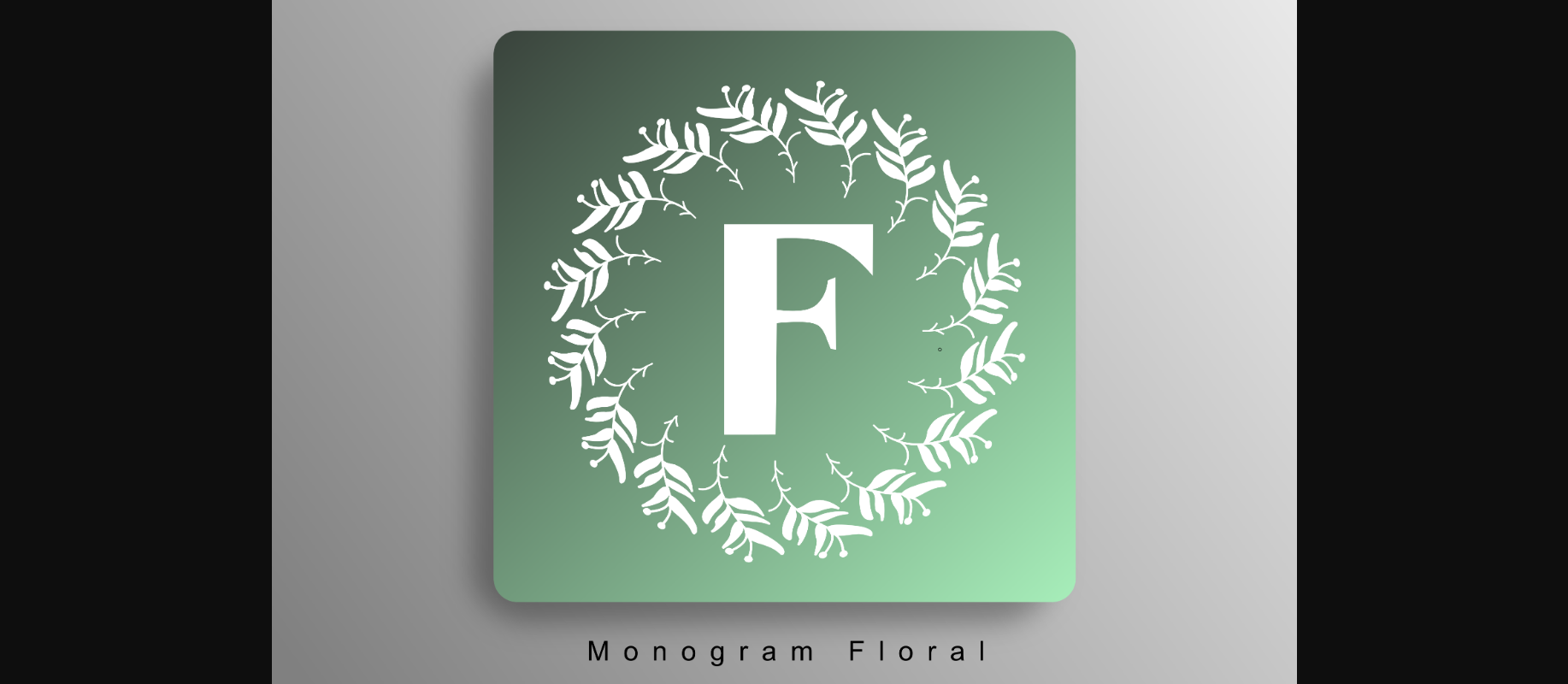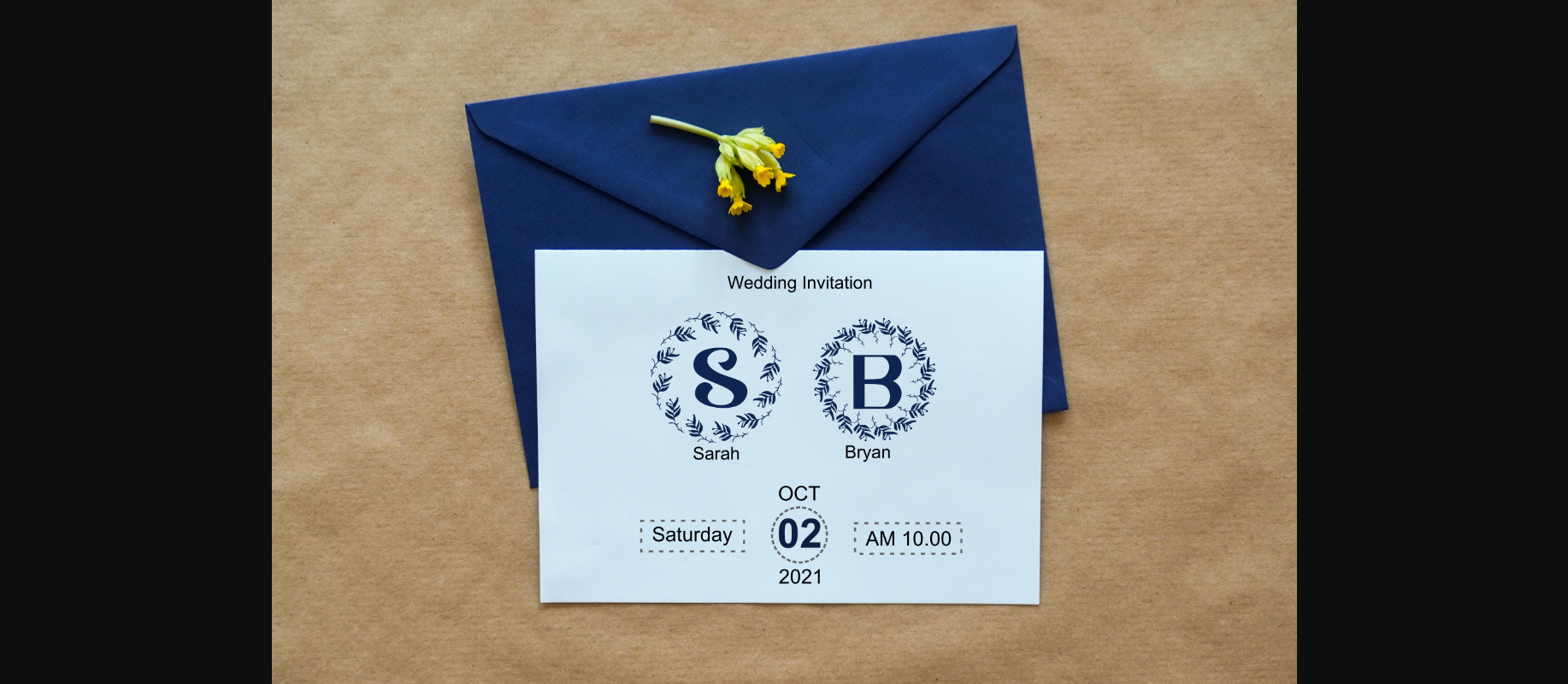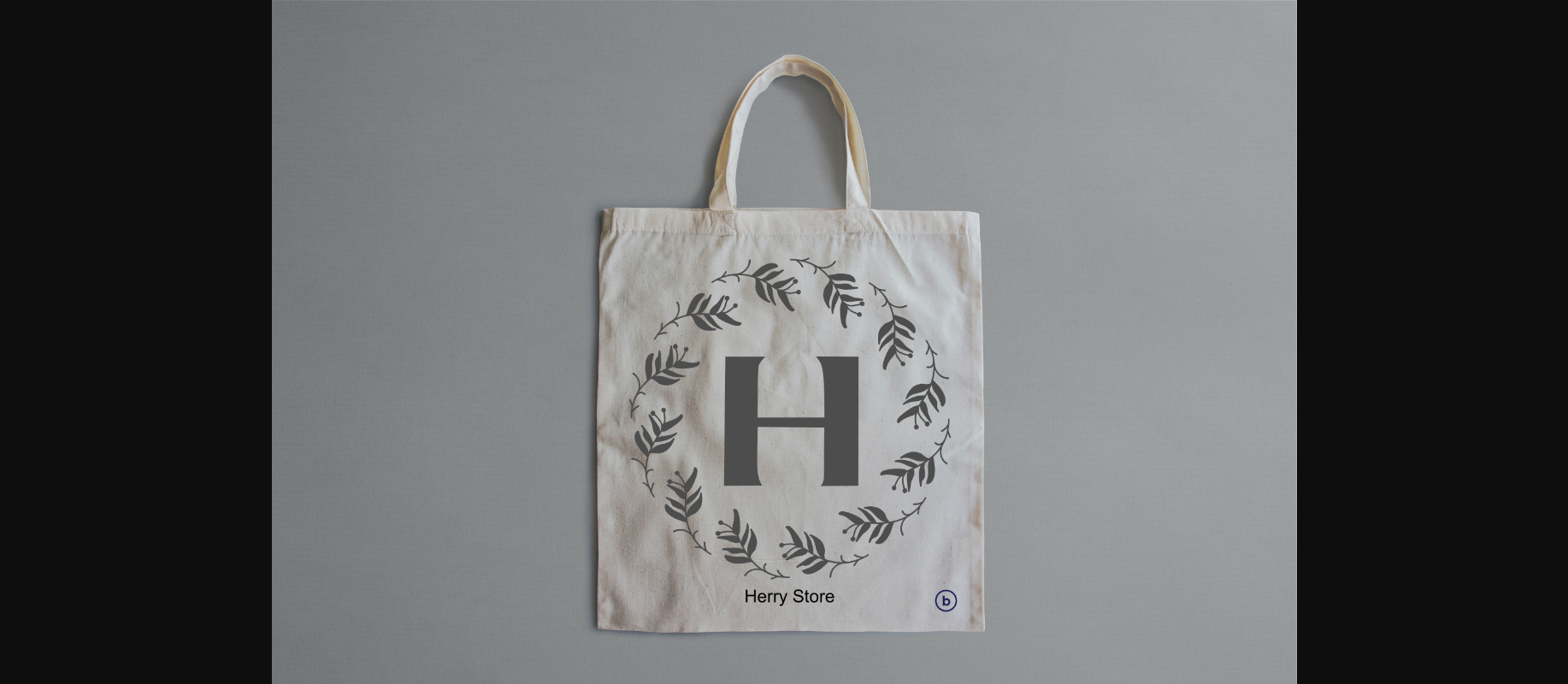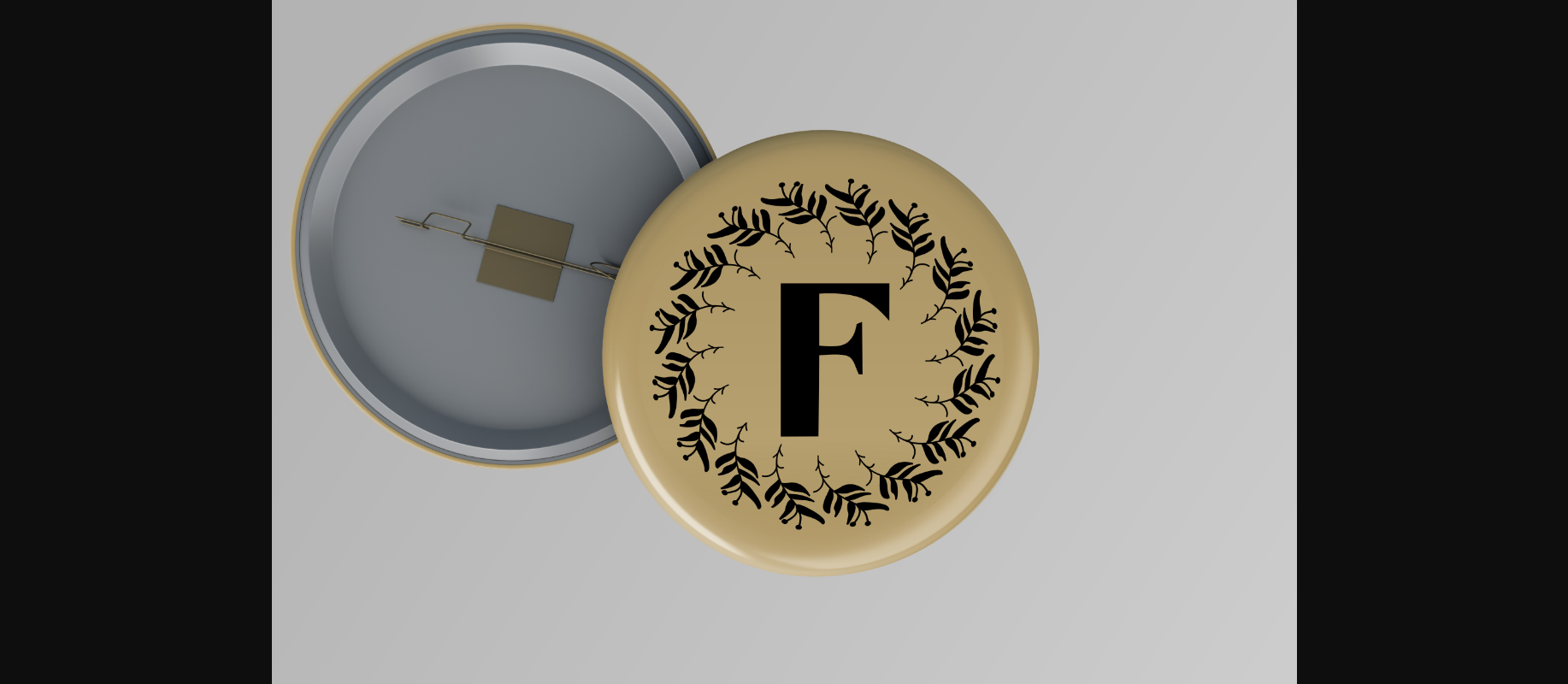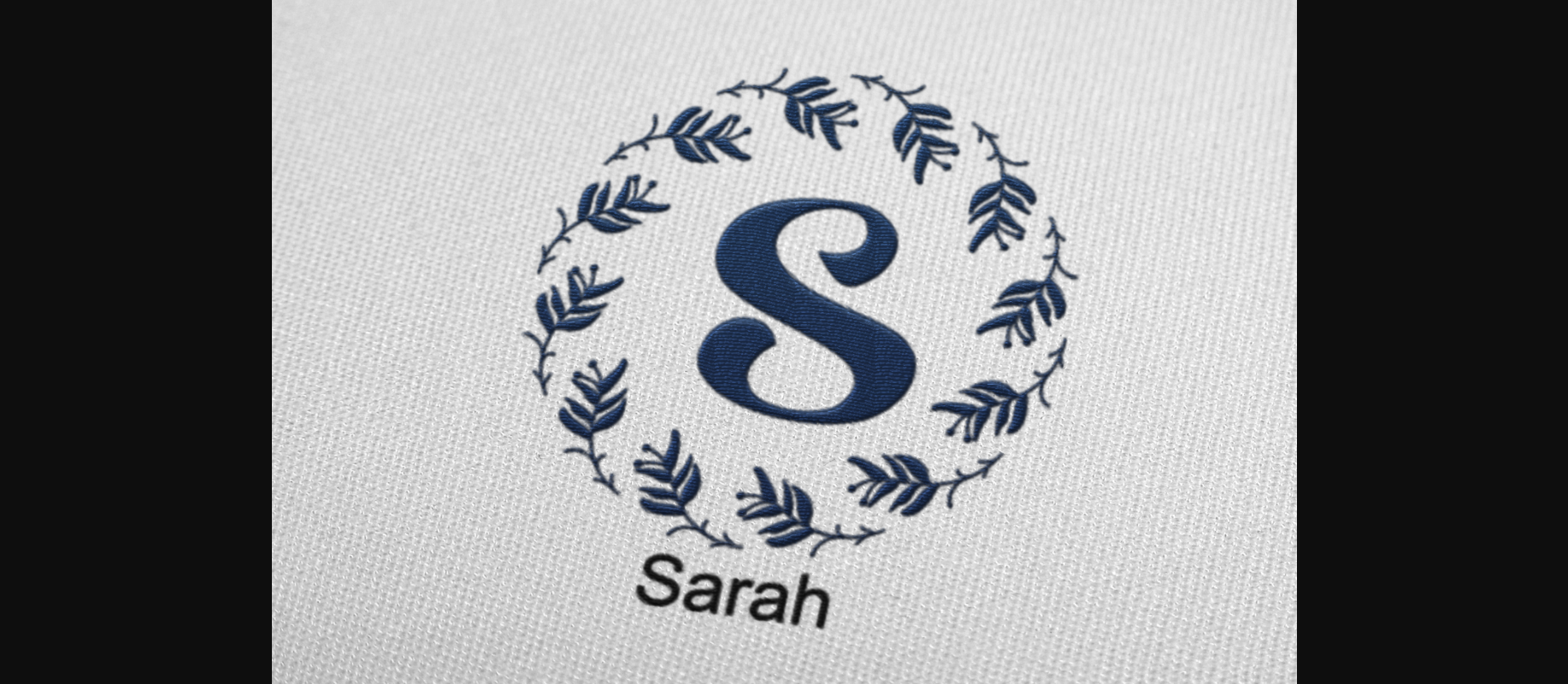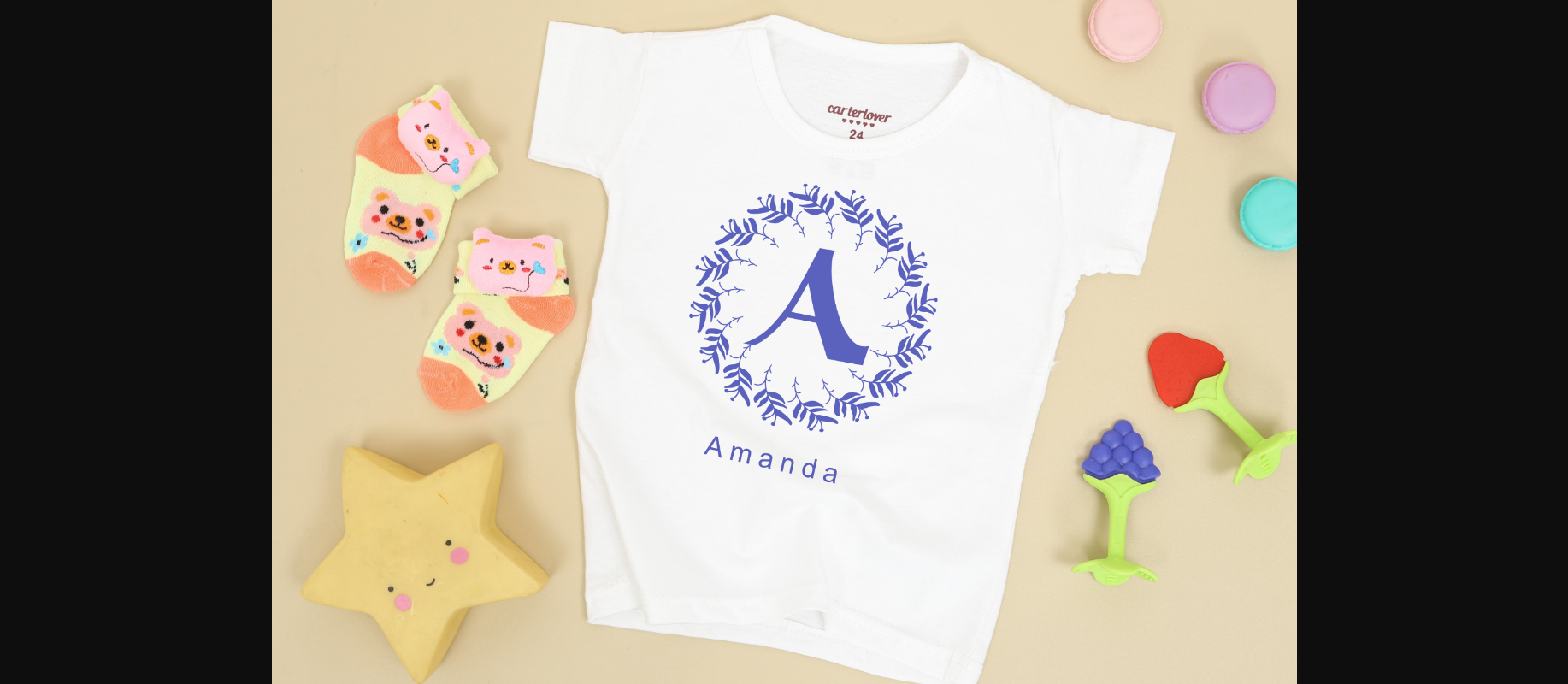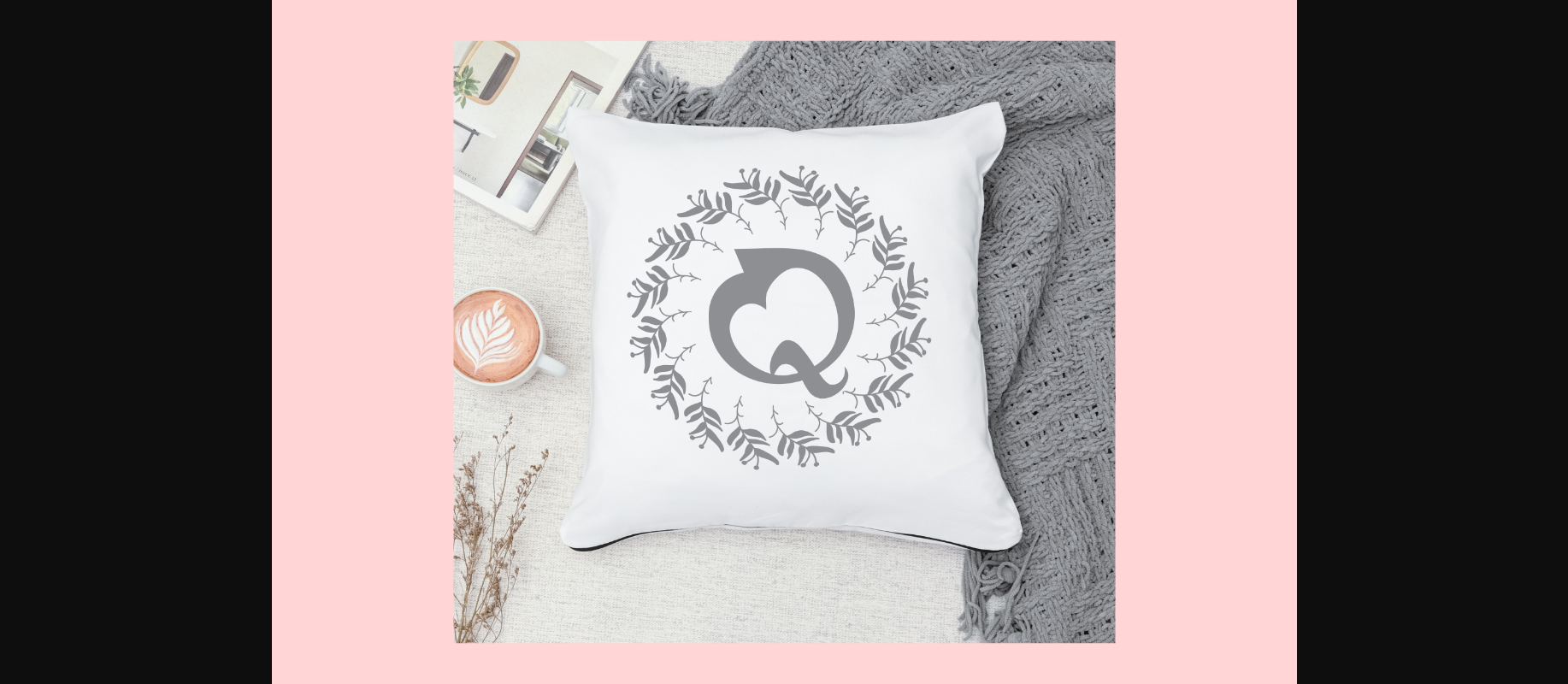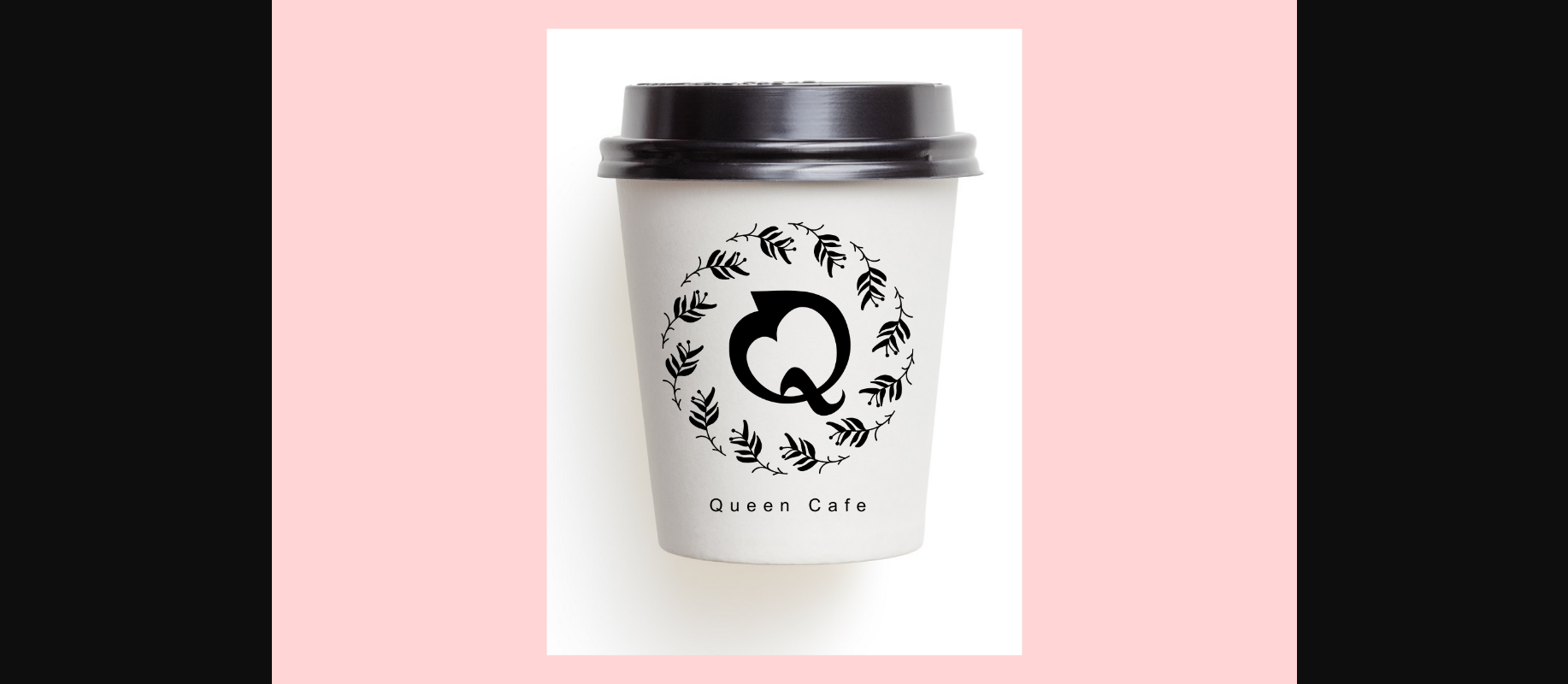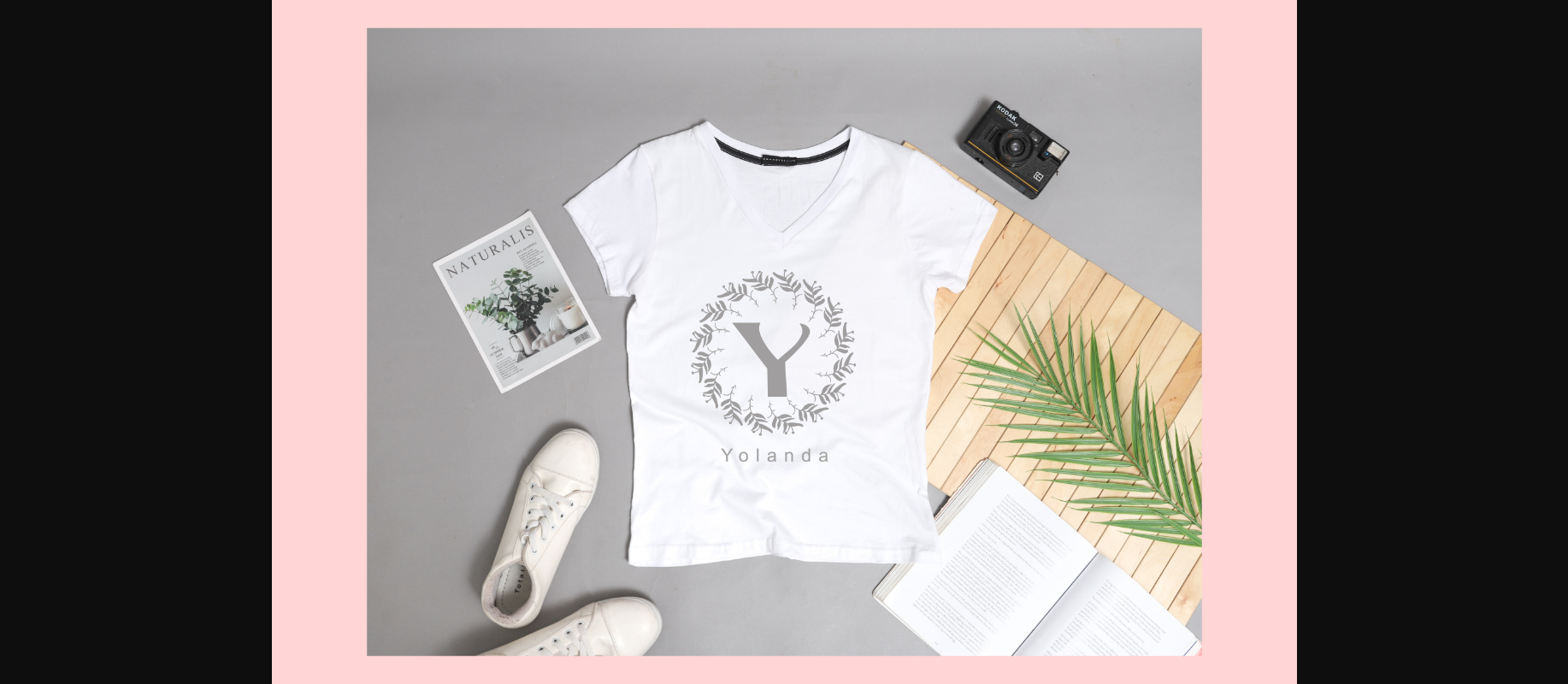
Monogram Floral Font
About Monogram Floral Font
Monogram Floral is a highly detailed and beautiful decorative font. Add this lovely looking font to each of your love letters, wedding invitations or favorite design ideas, and you will be astounded by the outcome.